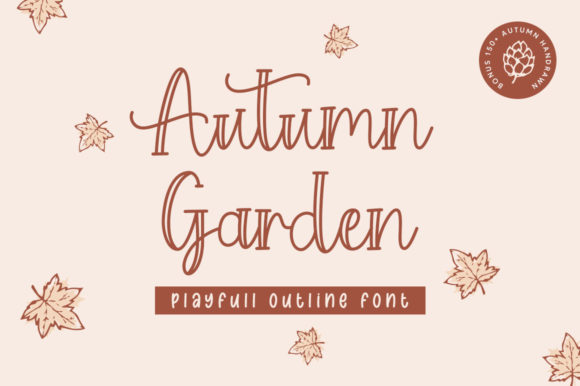
In the realm of visual eloquence, let us introduce you to the Autumn Garden Font, a creation of the esteemed Graphix Line Studio. This display font is not just a collection of characters; it's an artistic expression that brings life to your digital designs.
Picture this: a captivating cartoon, bursting with vibrant colors and whimsical characters, each uttering their lines in a font that mirrors their playful personalities. Or perhaps, a children's game, where every click and move is accompanied by a cheerful chime, rendered in a font that evokes laughter and wonder. These are just glimpses of the magic that awaits you with the Autumn Garden Font.
This font is not merely a tool; it's an extension of your creativity, allowing you to weave tales, both whimsical and enchanting. Its irresistibly charming curves and delightful details add a touch of lightheartedness to any project, transforming ordinary words into captivating narratives.
But don't let its playful nature fool you. The Autumn Garden Font possesses a versatility that defies boundaries. Its characters dance gracefully across LED displays, billboards, and social media posts, capturing attention with their undeniable charisma. Whether you're a seasoned designer or just starting your creative journey, this font will elevate your designs to new heights.
With the Autumn Garden Font, prepare to embark on an artistic adventure where every letter tells a story and every word paints a picture. Let your imagination run wild as you craft designs that resonate with your audience, leaving them utterly captivated.